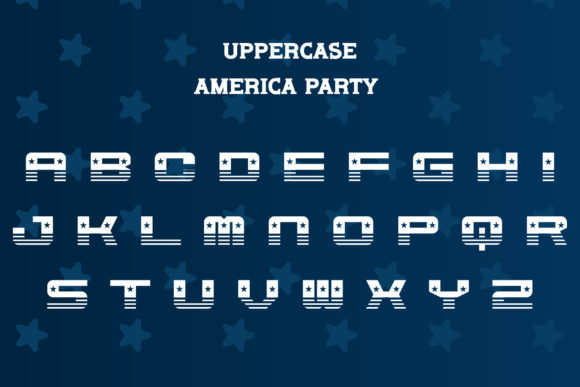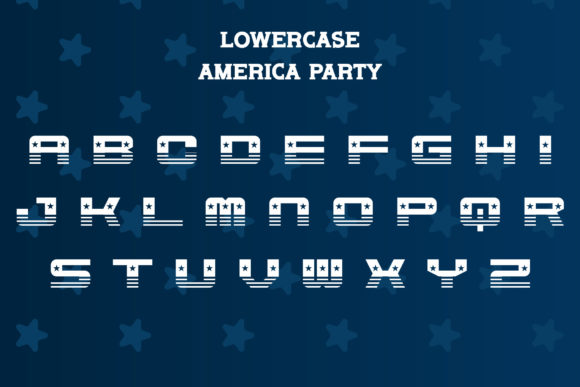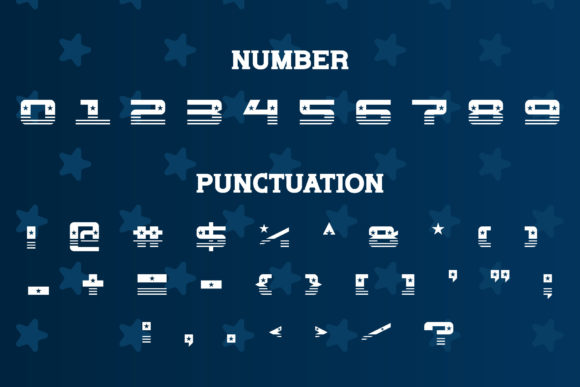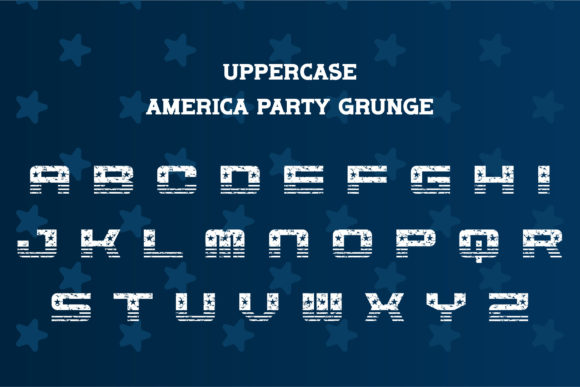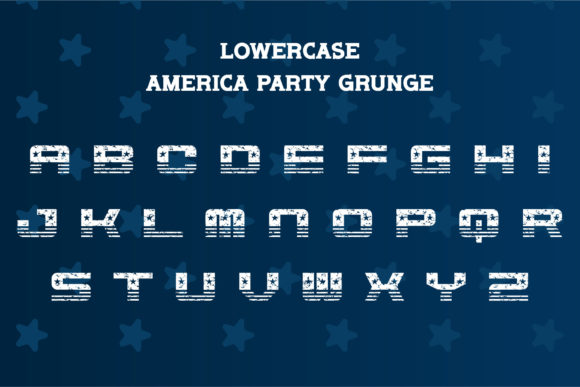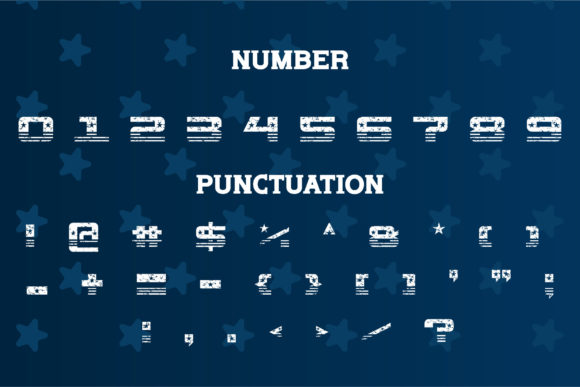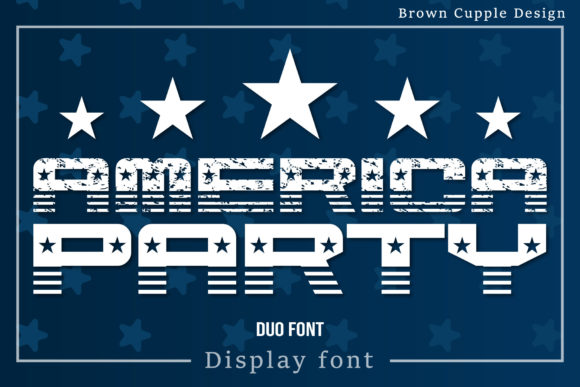
Introducing America Party Font: The Bold and Assertive Decorative Font You Need
Are you tired of using the same old fonts for your designs? Look no further! America Party Font is here to take your creative projects to the next level. This bold, incredibly cool, and assertive decorative font is perfect for designers and crafters who want to make a statement. With its versatility and ease of use, America Party Font is a must-have for any design enthusiast.
America Party Font is a decorative font that can be used for a wide range of projects. Whether you’re working on blog posts, logos, branding, ads, invitations, greeting cards, planners, photo albums, decorations, or anything in between, this font is the perfect addition to your design toolkit. Its bold and assertive style is sure to grab attention and leave a lasting impression.
Imagine using America Party Font to create eye-catching logos, posters, and advertisements that showcase your brand’s personality. Or, picture using it to add a personal touch to your greeting cards, invitations, and planners. The possibilities are endless, and with America Party Font, you can take your designs to new heights.
Why Choose America Party Font?
So, what sets America Party Font apart from other decorative fonts on the market? Here are just a few reasons why designers and crafters love this font:
• Bold and Assertive Style: America Party Font is designed to make a statement. Its bold and assertive style is perfect for designers who want to grab attention and leave a lasting impression.
• Versatility: This font can be used for a wide range of projects, from blog posts and logos to invitations and decorations.
• High-Quality Design: This font is designed with high-quality craftsmanship in mind. The attention to detail and precision design ensure that your projects look professional and polished.
Tips for Using America Party Font
Now that you know more about America Party Font, here are a few tips for getting the most out of this amazing decorative font:
• Experiment with Different Sizes: America Party Font looks great in a variety of sizes. Experiment with different font sizes to find the perfect fit for your project.
• Pair with Other Fonts: This font pairs well with a variety of other fonts. Try pairing it with a simple sans-serif font for a bold and modern look.
• Use for Headings and Titles: America Party Font is perfect for headings and titles. Use it to add a bold and assertive touch to your designs.